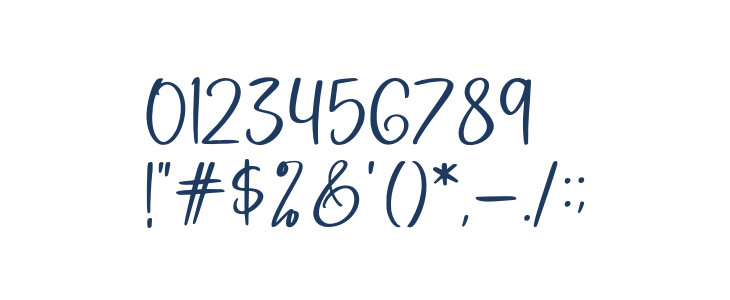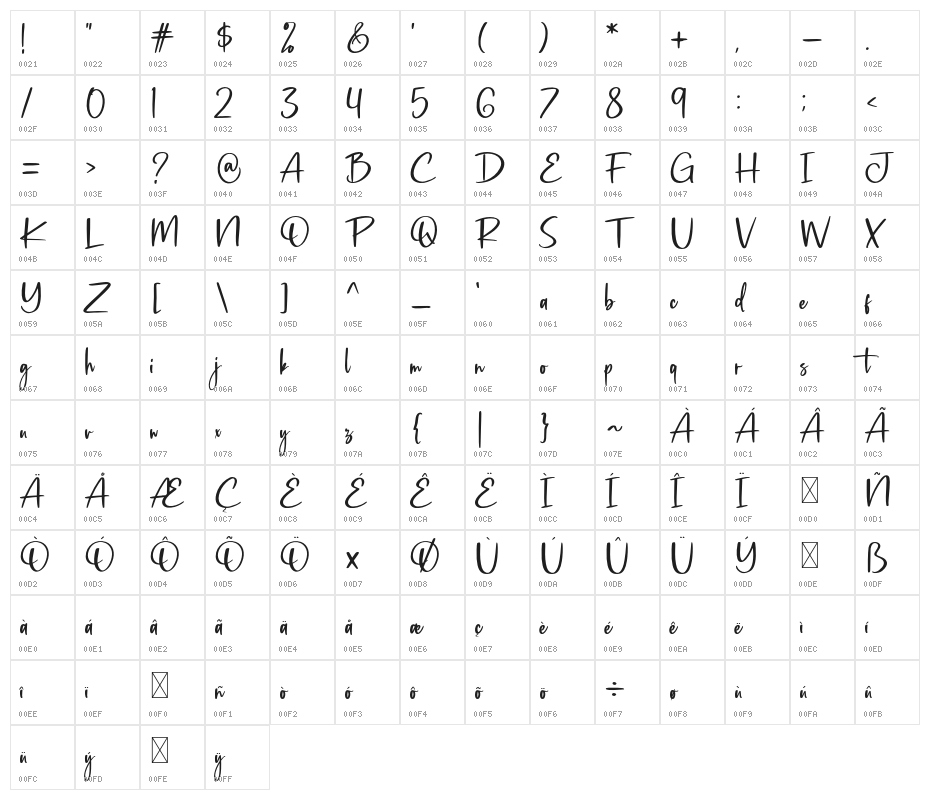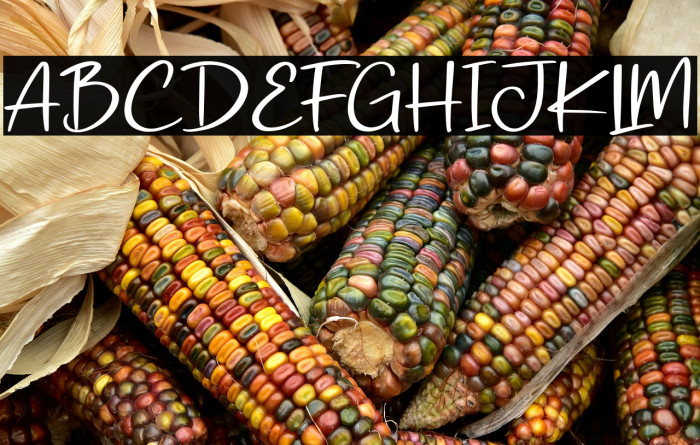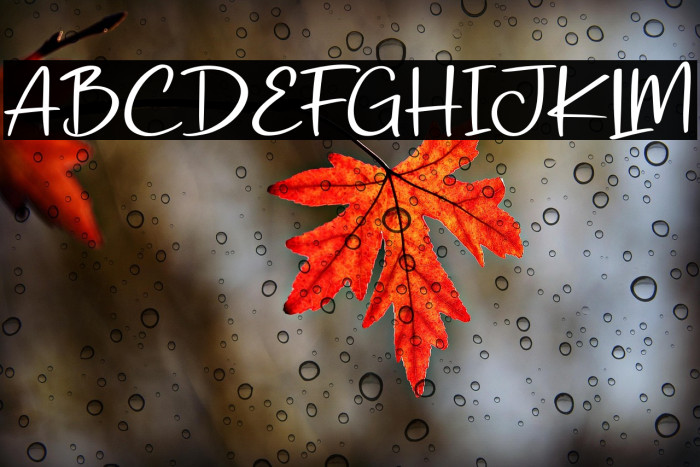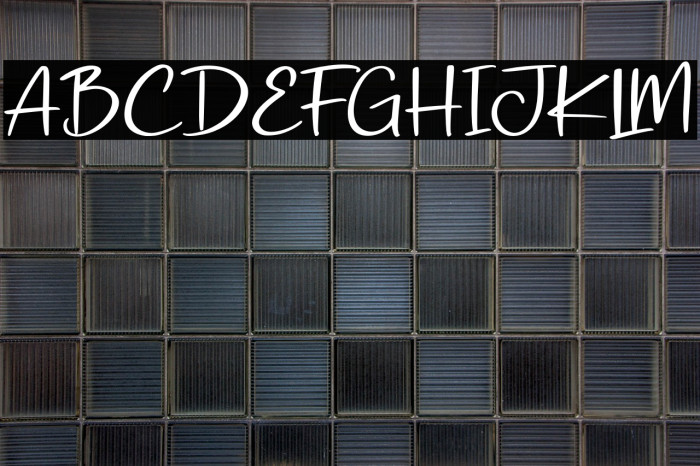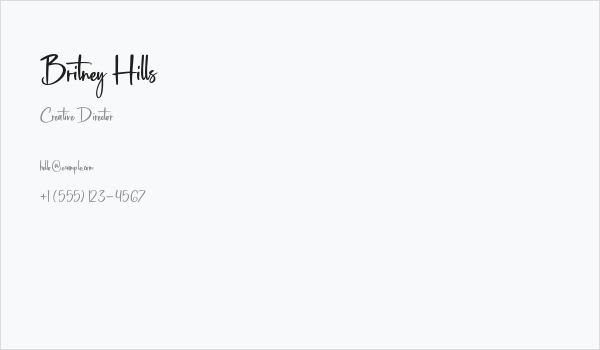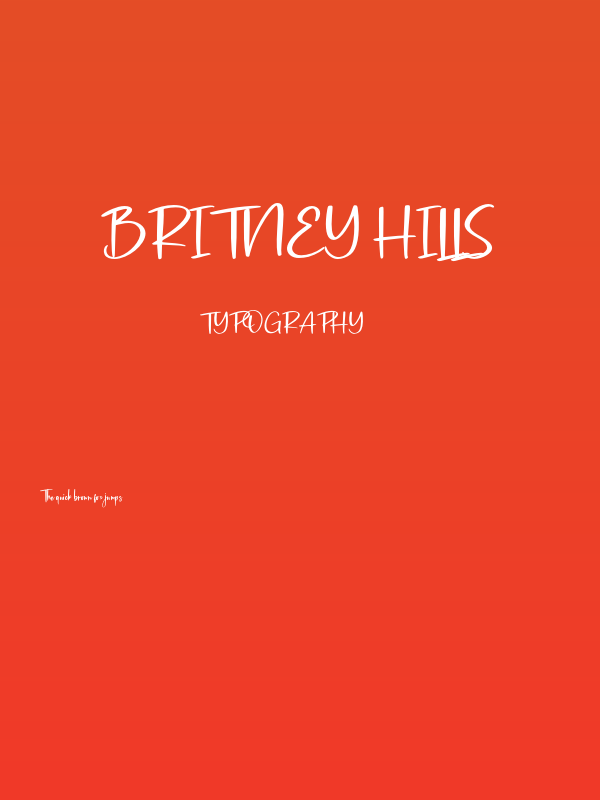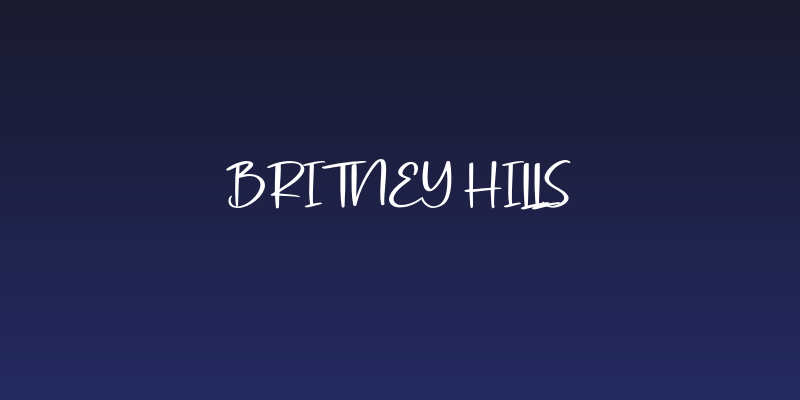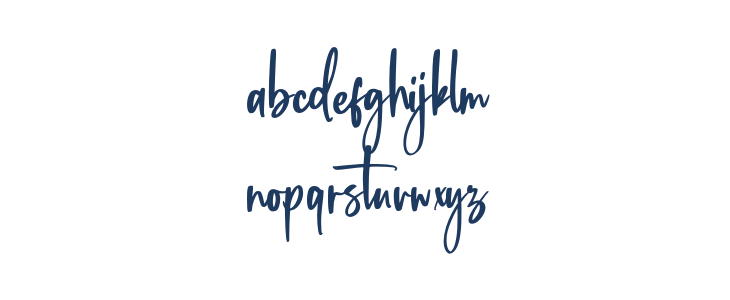
Britney Hills Font
Britney Hills Description
This font features a lively and expressive handwritten style, characterized by its flowing and dynamic strokes. The uppercase letters are bold and slightly slanted, giving a sense of movement and energy. The lowercase letters maintain a consistent style, with some letters extending below the baseline, adding to the font's playful nature. The numerals are equally expressive, with a mix of rounded and angular forms that complement the overall design. Special characters are included, maintaining the same energetic style, making this font versatile for various creative applications.